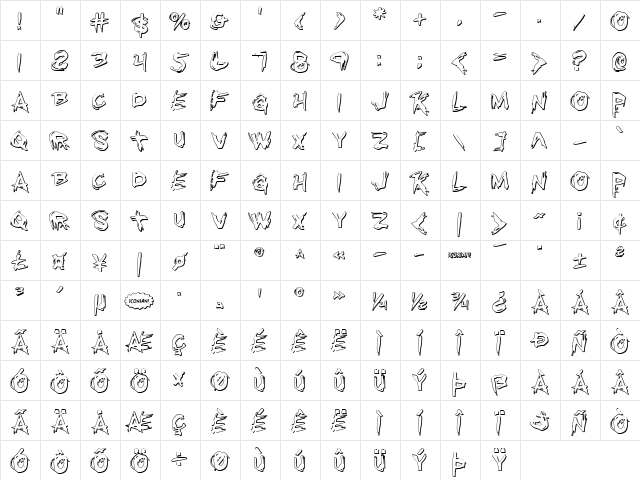
Righteous Kill Outline Regular Font Preview
Righteous Kill Outline Regular
Design Context for Righteous Kill Outline Typeface
Righteous Kill Outline is built around its visual character rather than neutral utility — its distinctive forms are designed to make an impression at display sizes.
Font Pairing: Pair with a clean neutral sans-serif for body copy to let Righteous Kill Outline's character lead without overwhelming the composition.
Pro Tip: Use Righteous Kill Outline exclusively at display sizes — it was designed to be seen, not read at length. Let a neutral companion handle body copy.